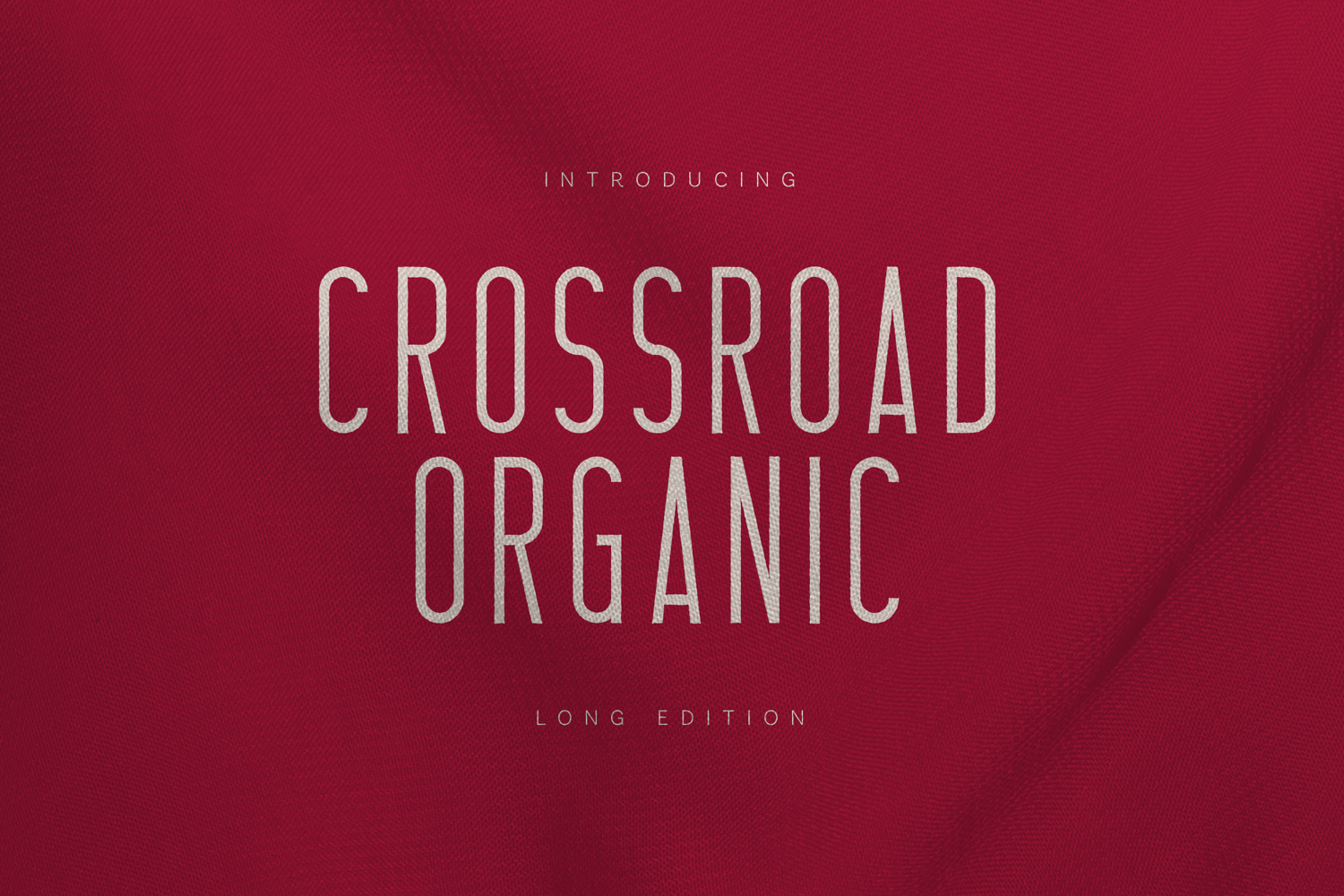
Crossroad Organic Tall Condensed Sans Serif
Crossroad Organic is a modern condensed sans serif font designed with tall proportions and a subtle organic character. Its clean structure combined with soft imperfections creates a human, natural rhythm that feels contemporary, calm, and intentional.
This font is ideal for posters, headlines, branding, fashion editorials, sustainability projects, packaging, signage, and minimalist design systems. Its narrow letterforms make it perfect for space-efficient layouts while maintaining excellent readability and visual elegance.
Designed for designers who value simplicity, clarity, and organic modernity, Crossroad Organic brings quiet confidence to typography.
✦ Perfect for:- Editorial & magazine design
- Sustainable & organic branding
- Posters & headlines
- Fashion & lifestyle projects
- Packaging & labels
- Minimalist layouts
- Print & digital design
- Tall condensed sans serif font
- Organic & minimal character
- Uppercase & lowercase letters
- Numbers & punctuation
- Extensive multilingual support
- Space-efficient letterforms